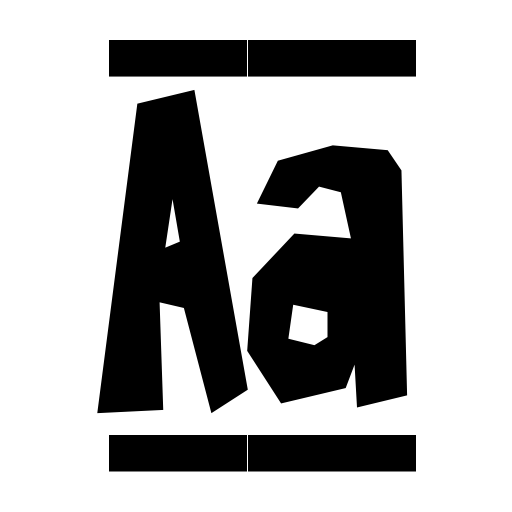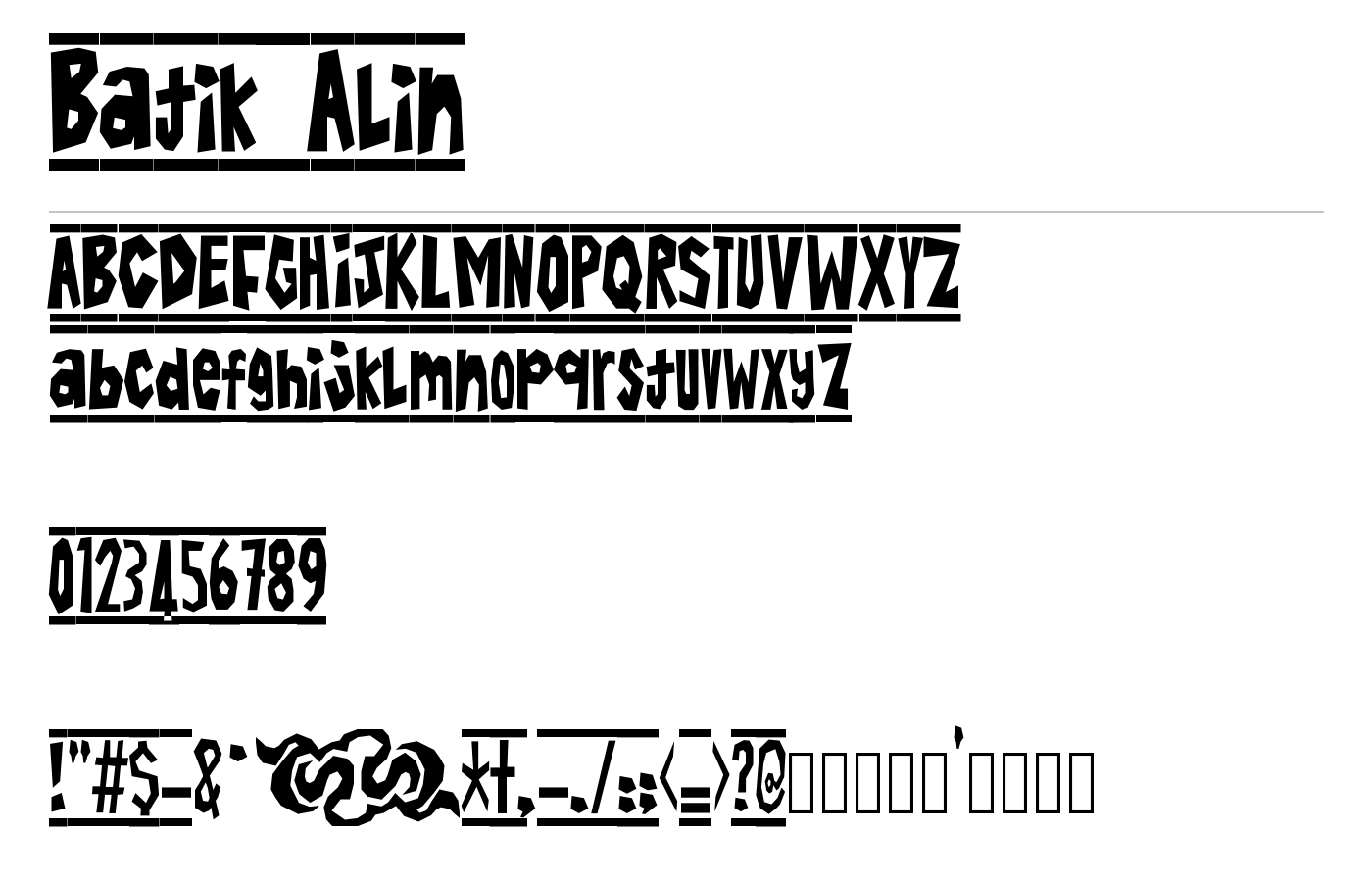
Batik Alin is a bold, quirky sans serif font with a playful, hand-crafted feel, featuring uneven, jagged edges and a strong vertical stance. Its high contrast stroke widths and irregular shapes give it a distinctive, dynamic personality that works great for creative and informal designs, especially in posters, headlines, or branding that seeks a fun and energetic vibe. This font shines when you want to add a unique, artistic touch that stands out and captures attention.
Batik Alin Font
About Batik Alin Font